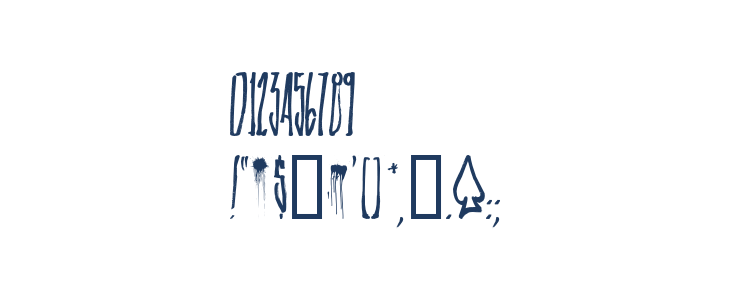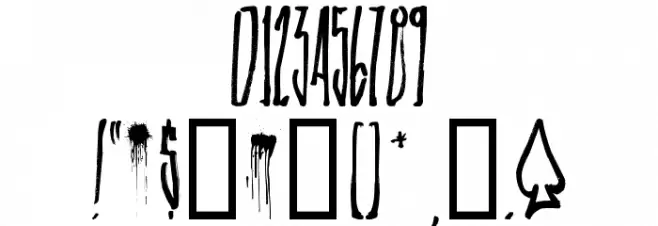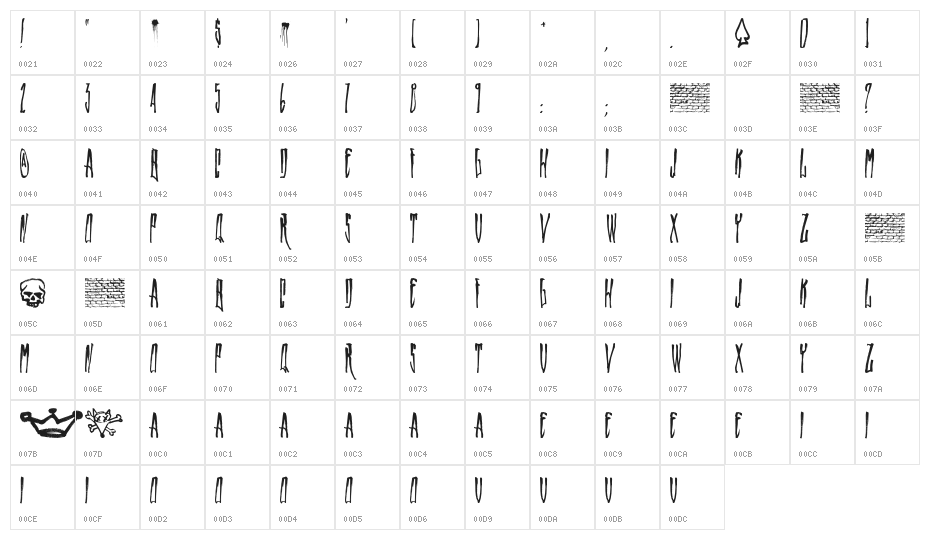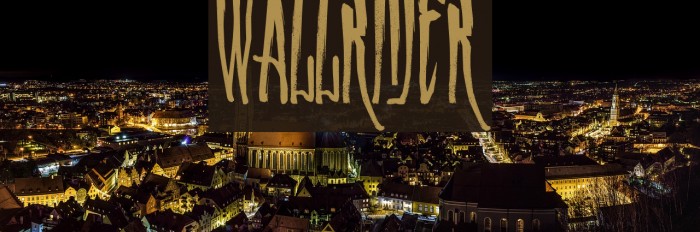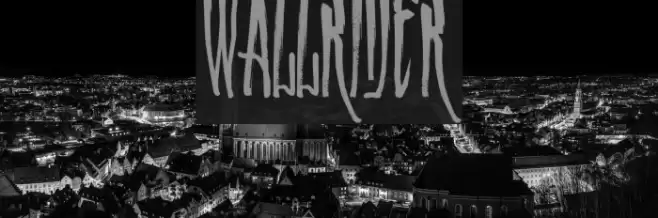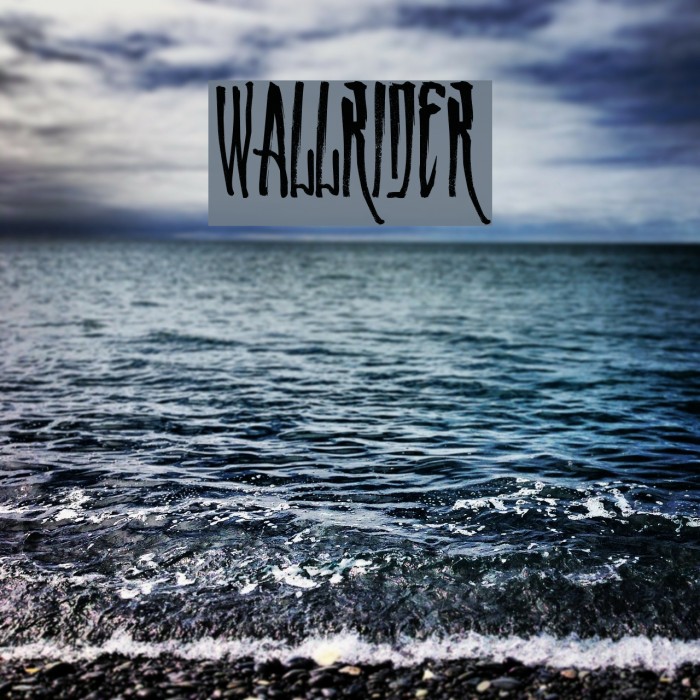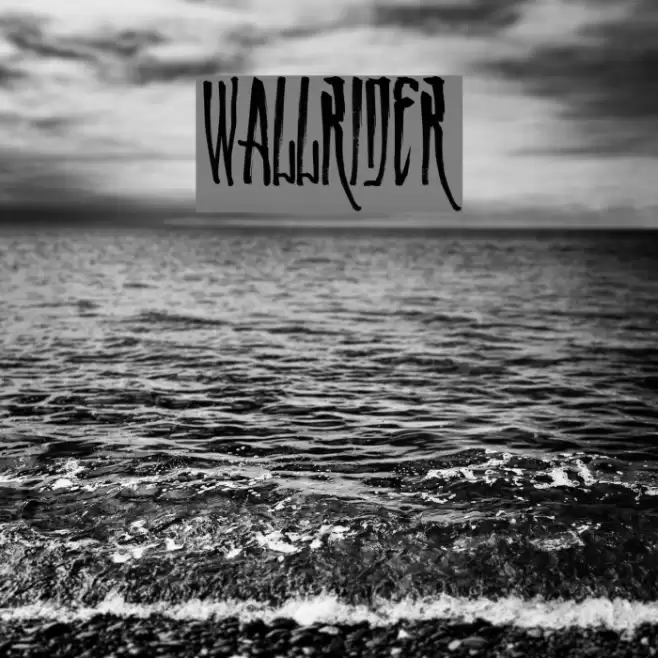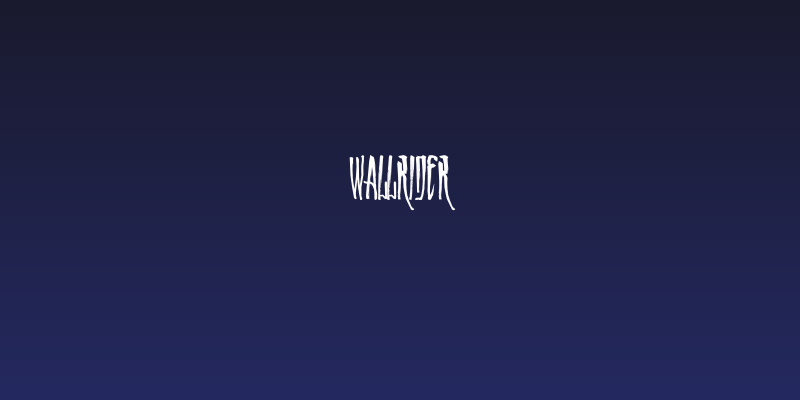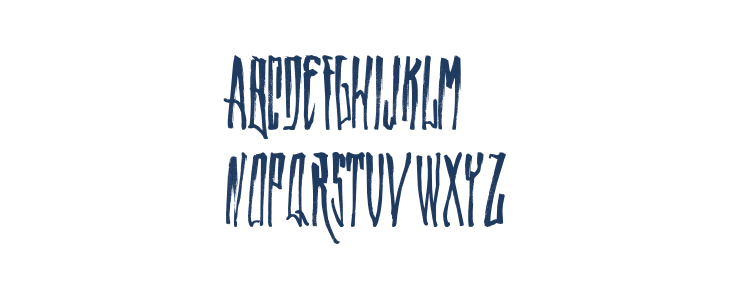
WALLRIDER Font
WALLRIDER Description
This font features a bold and edgy design with a grunge aesthetic. The letters are elongated and have a dripping effect, reminiscent of graffiti or street art. The uppercase and lowercase characters maintain a consistent style, with sharp edges and a distressed look. Numbers and special characters follow the same theme, adding to the overall rebellious and urban vibe. The font's unique appearance makes it stand out, perfect for projects that require a strong visual impact.
| Overall Style | Modern, Grunge |
| Proposed Projects | Ideal for album covers, streetwear branding, skateboarding graphics, and urban-themed posters. |